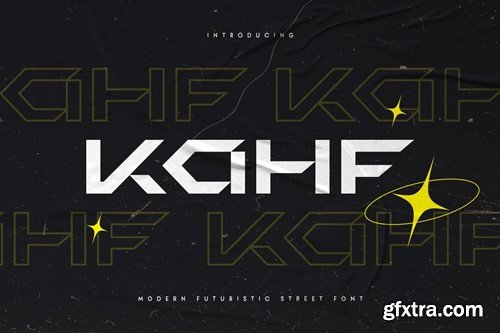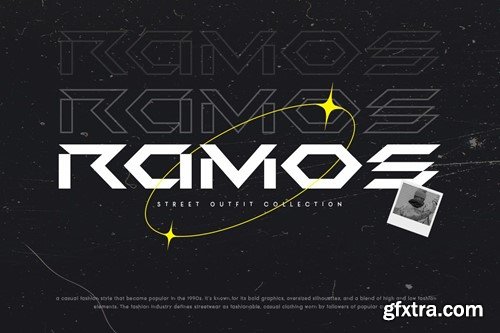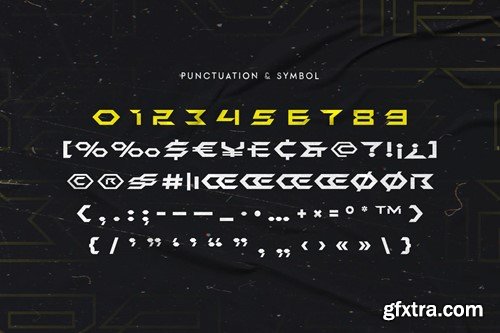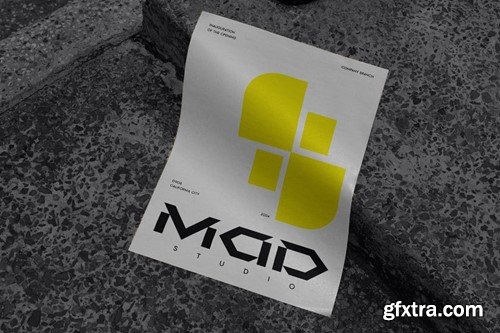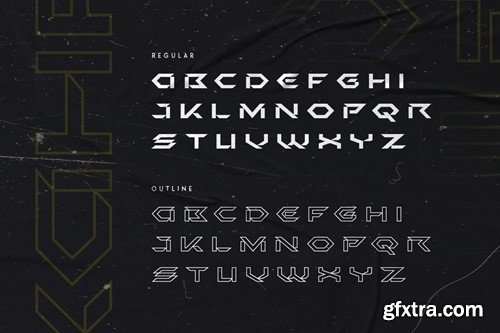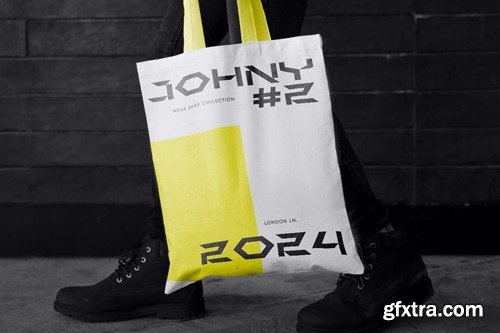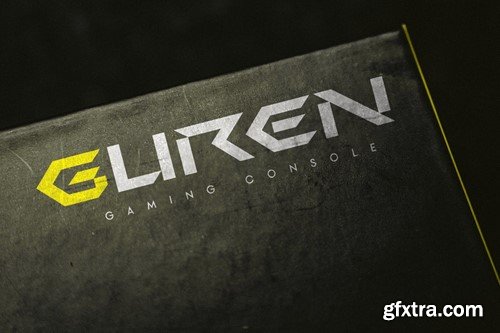
现代未来主义街道字体
KAHF - Modern Futuristic Street Font UCEZLTG
KAHF - Modern Futuristic Street Font
KAHF is a Modern Street Futuristic Sci-fi font that created special for Sci-fi, Modern, Technology and more stand out typography needs, with extra outline styles that make your design more Futuristic. It's so perfect to add your style and headline overview for Cryptocurrency, technology, film, and Sci-fi theme. And specially for this font, we crafted for regular and outline modern style and technology feels so enjoy to create any project that will show your main idea out.
• Regular and Outline characters prepared to get creative alternatives in Futuristic theme
• Ready with Technology characters